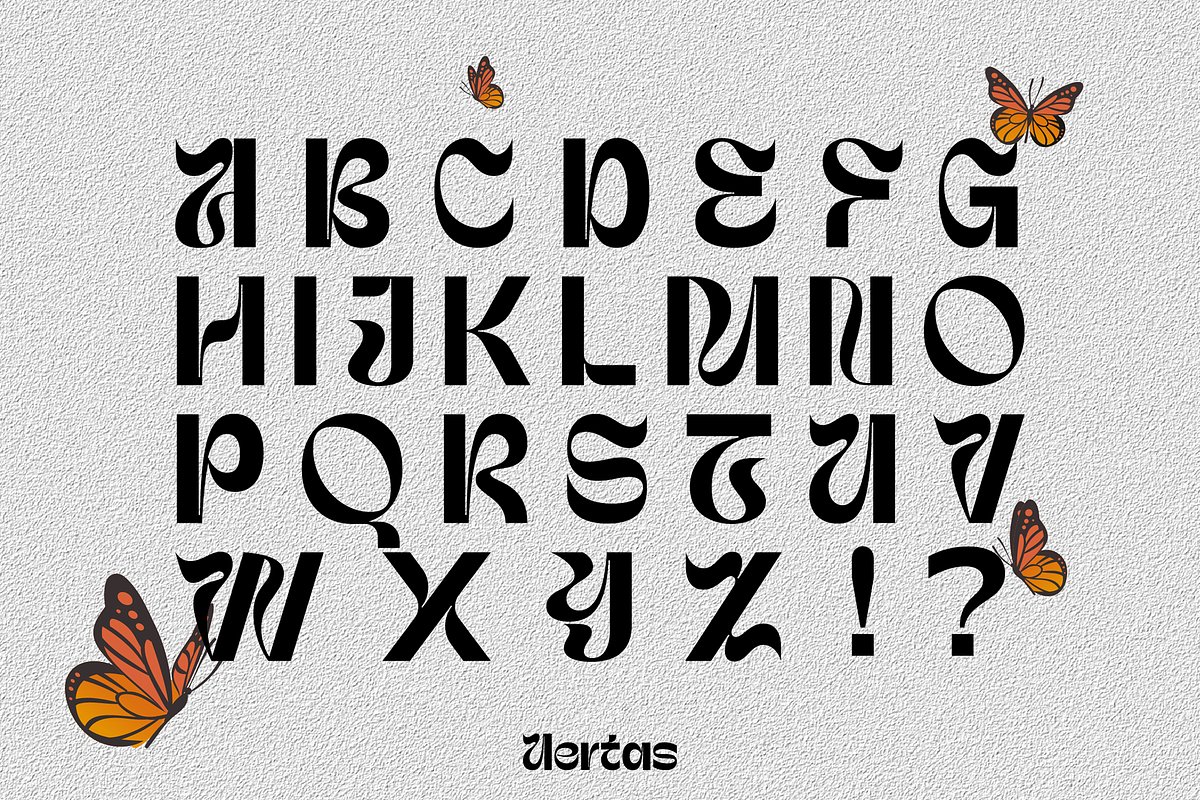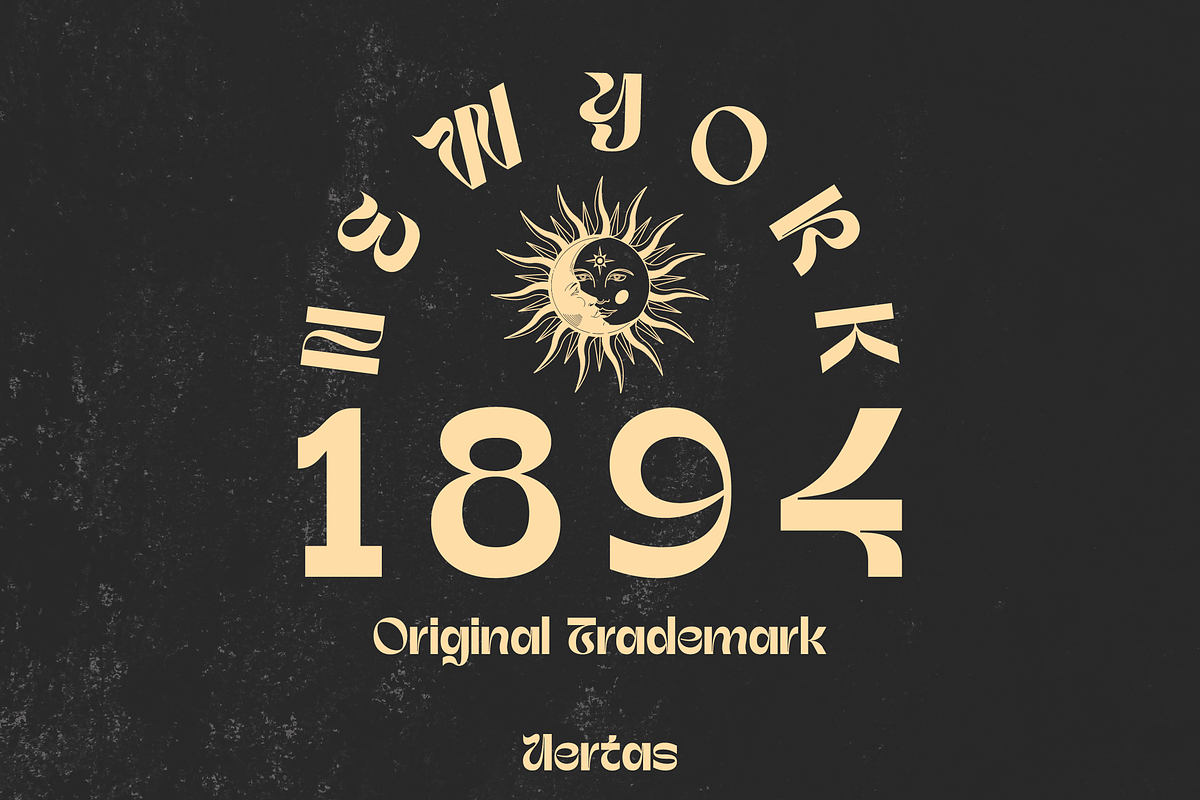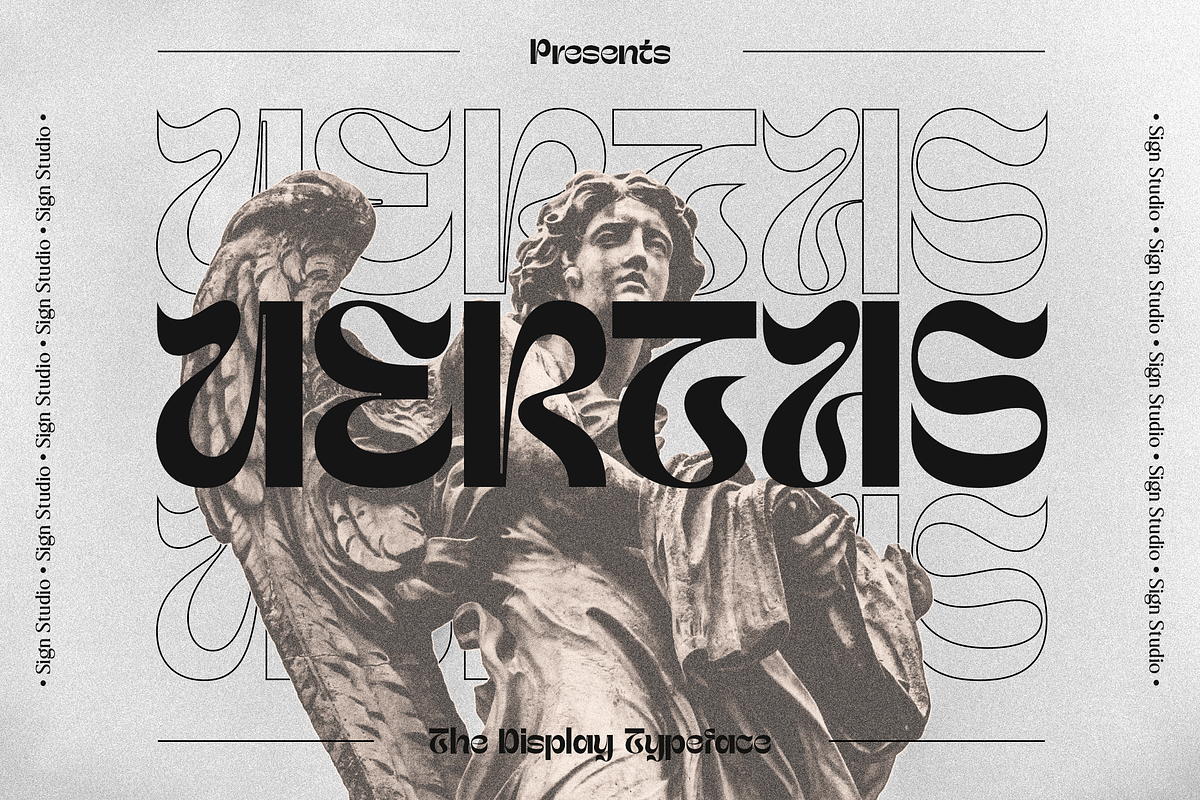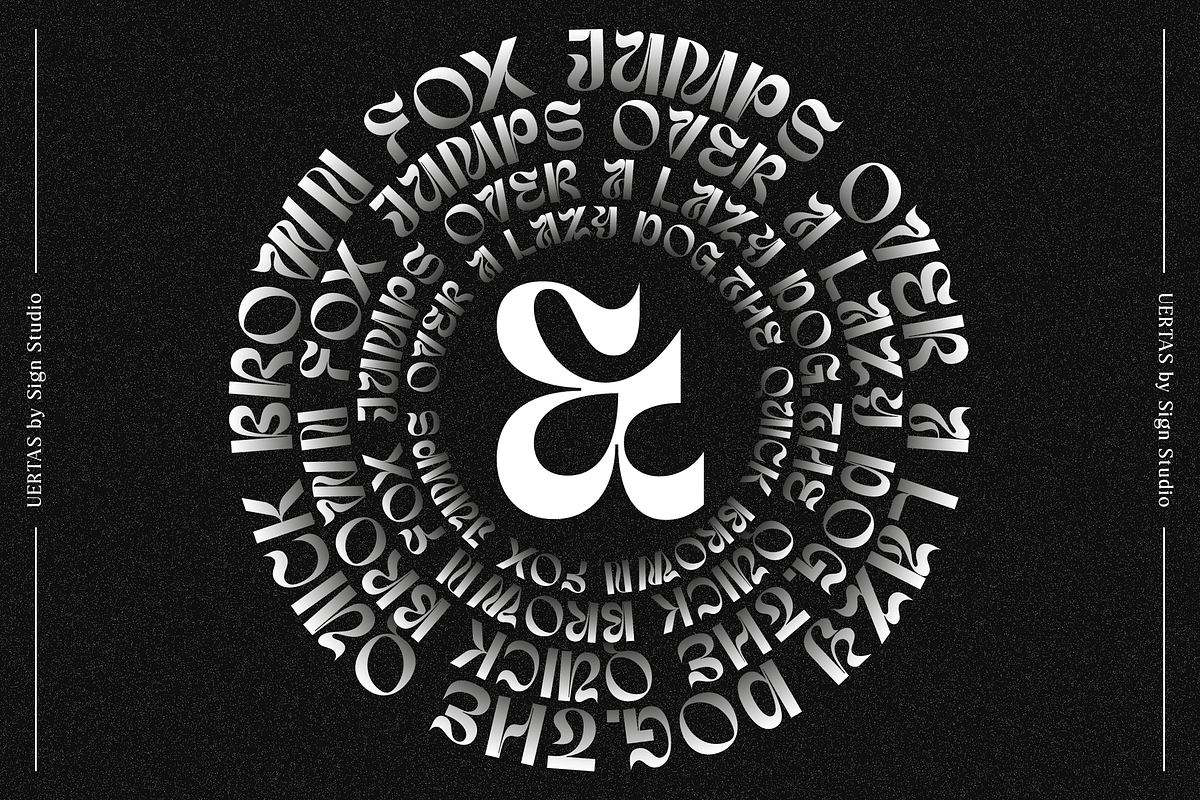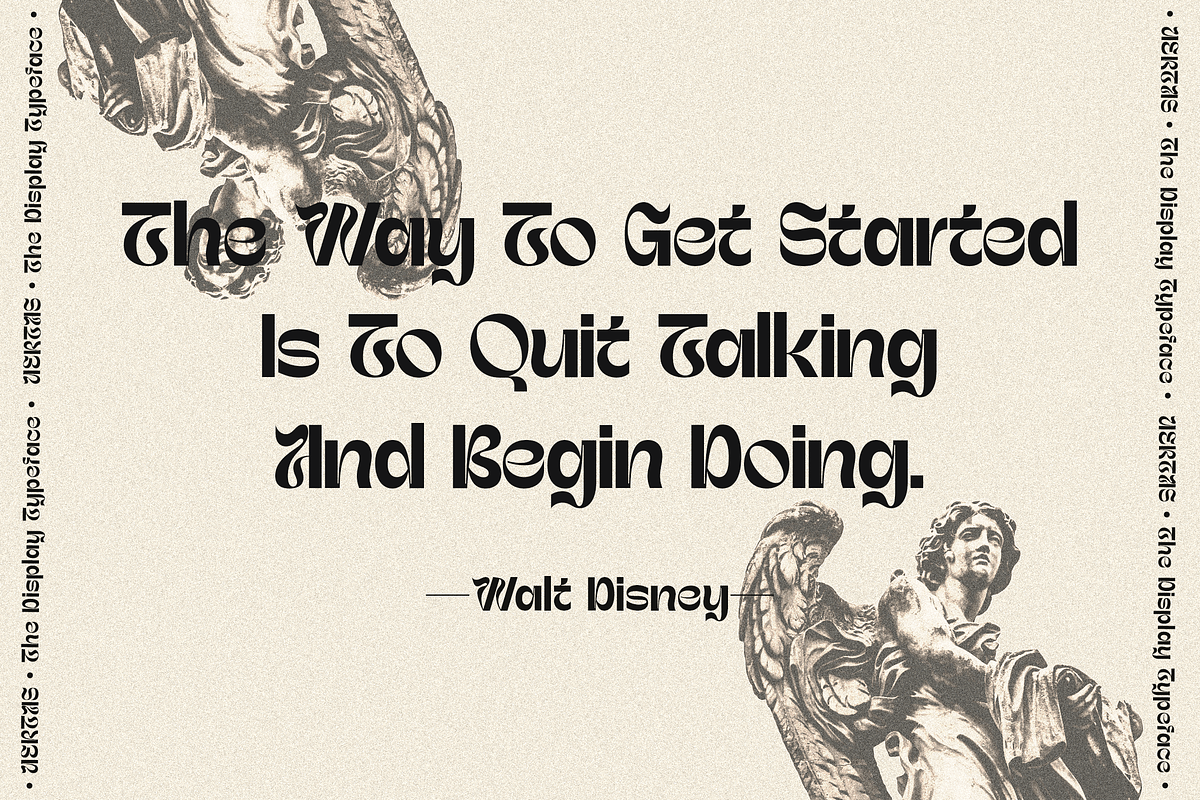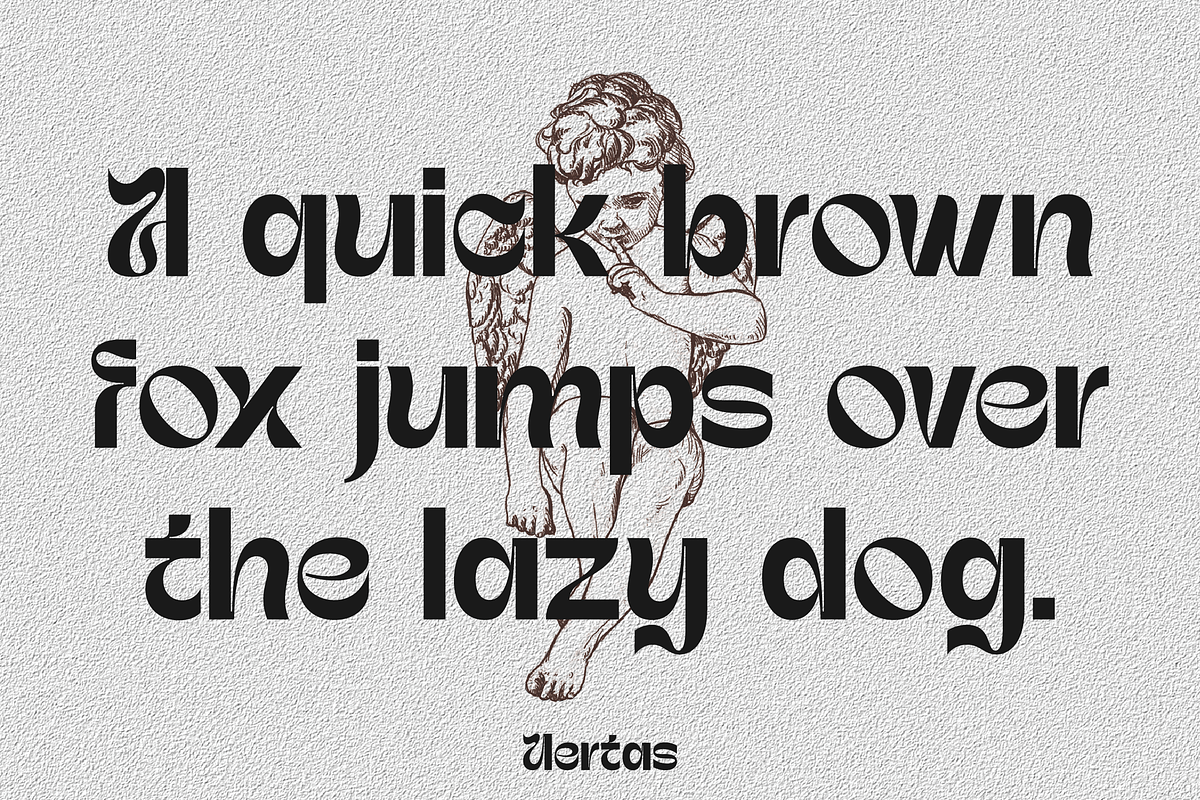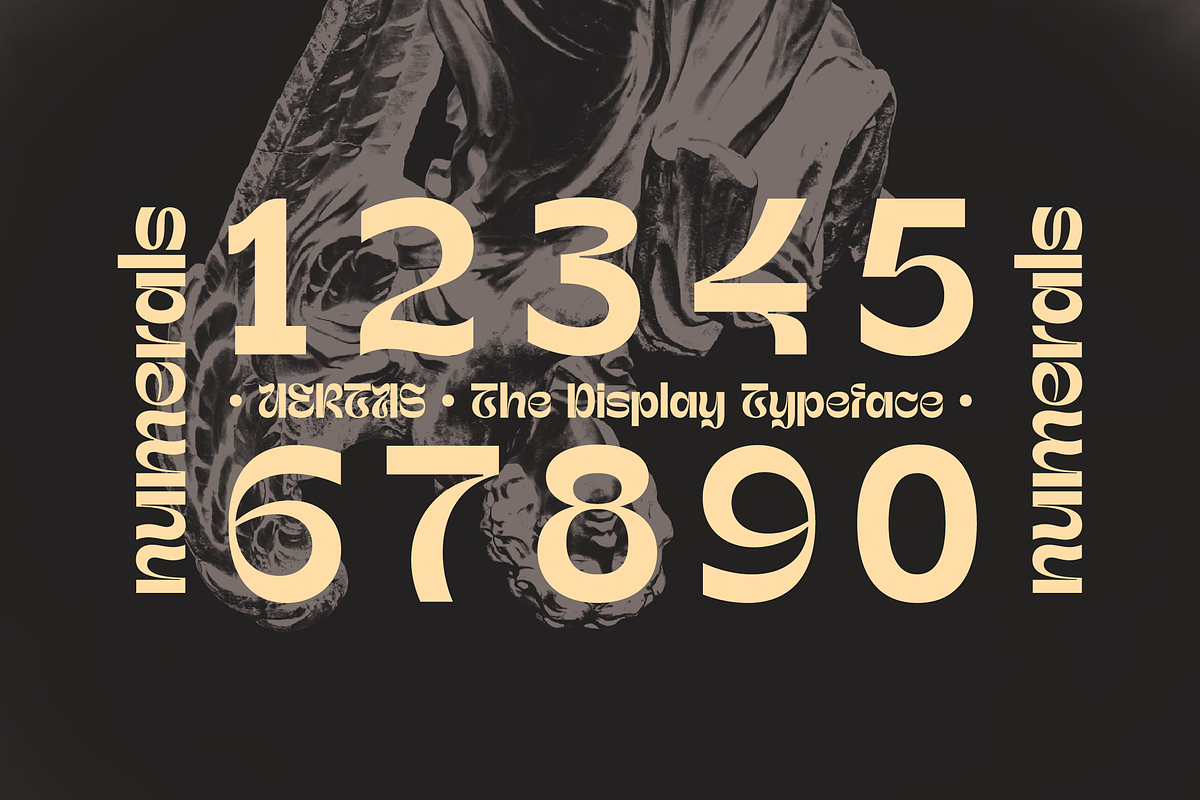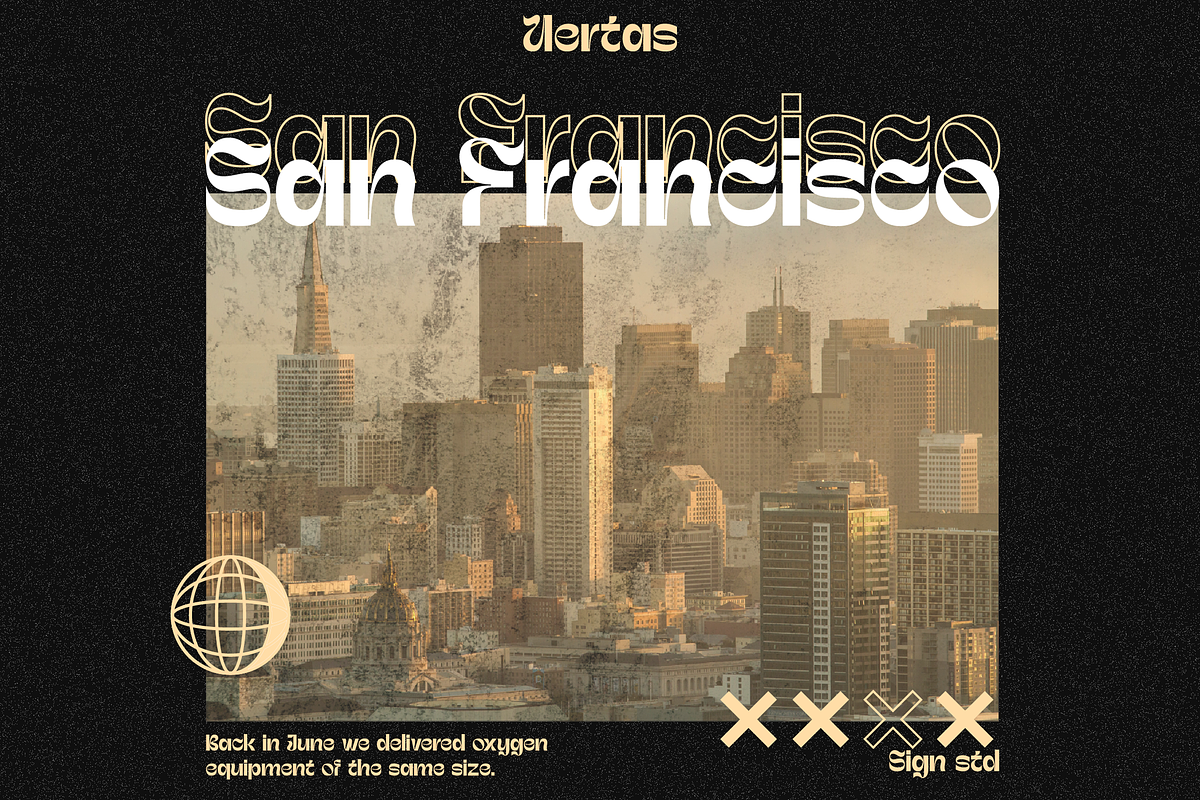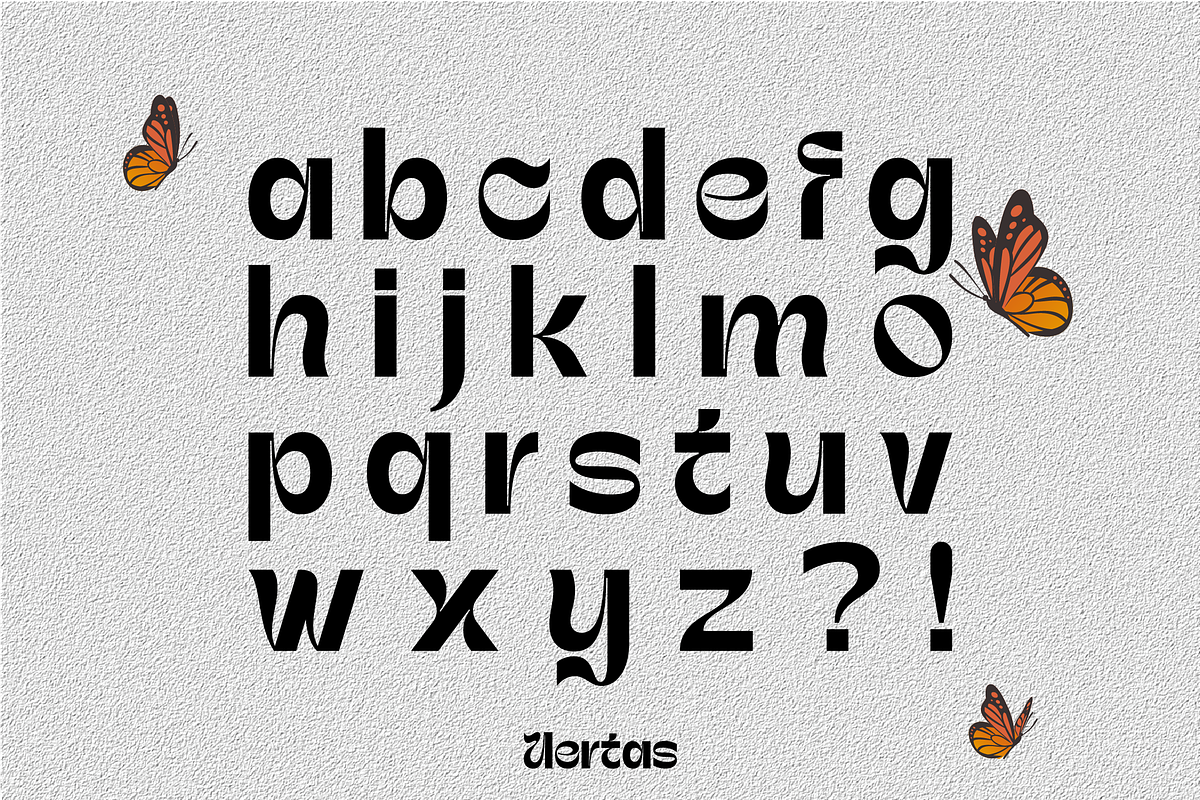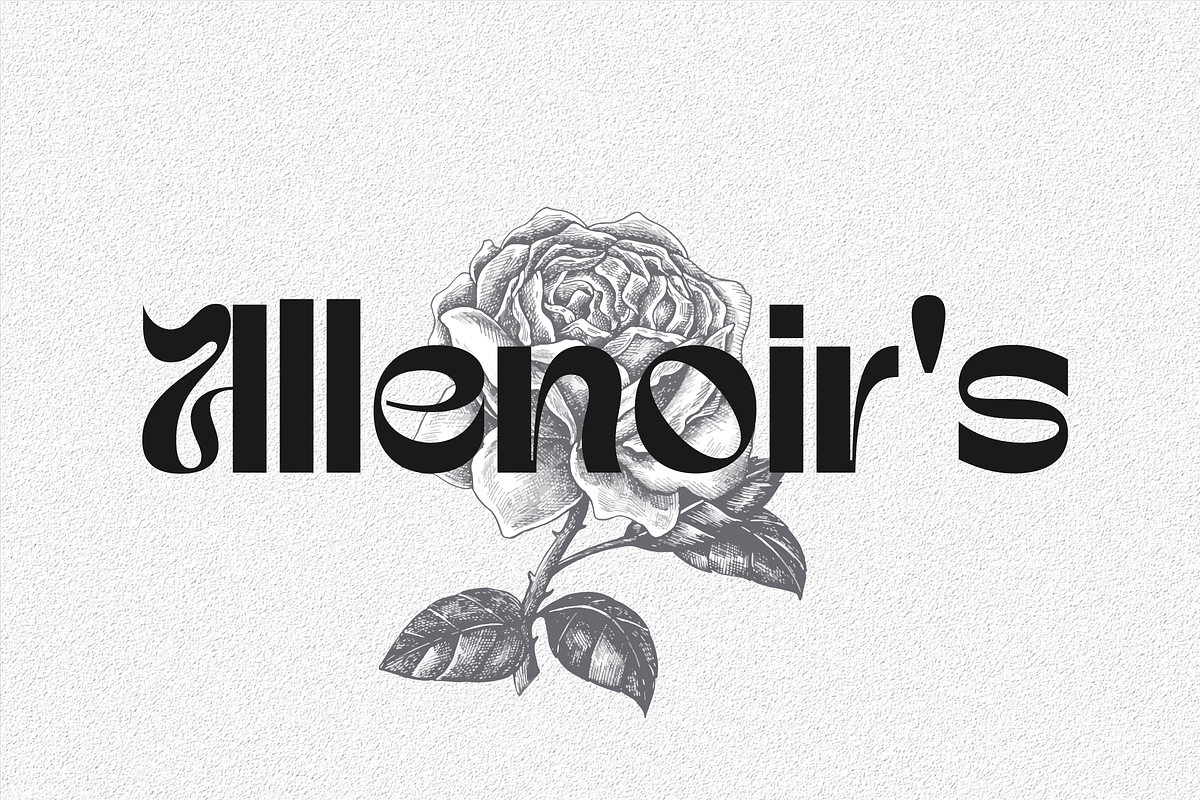
Uertas
Uertas font brings a modern calligraphy feel. It's perfect for freestyle urban typography, modern logotypes, product branding, or just a quote that you want to stand out.